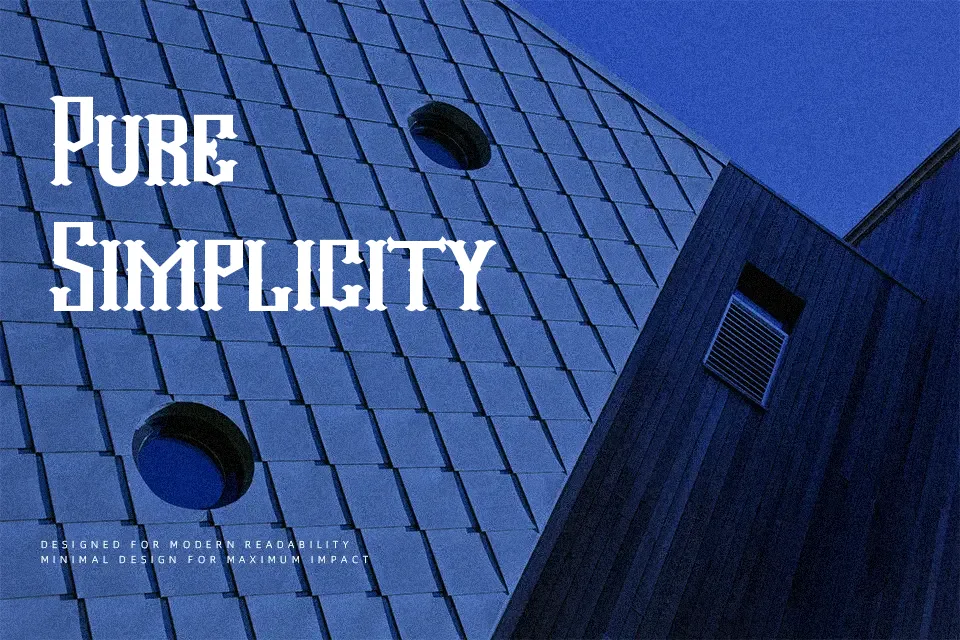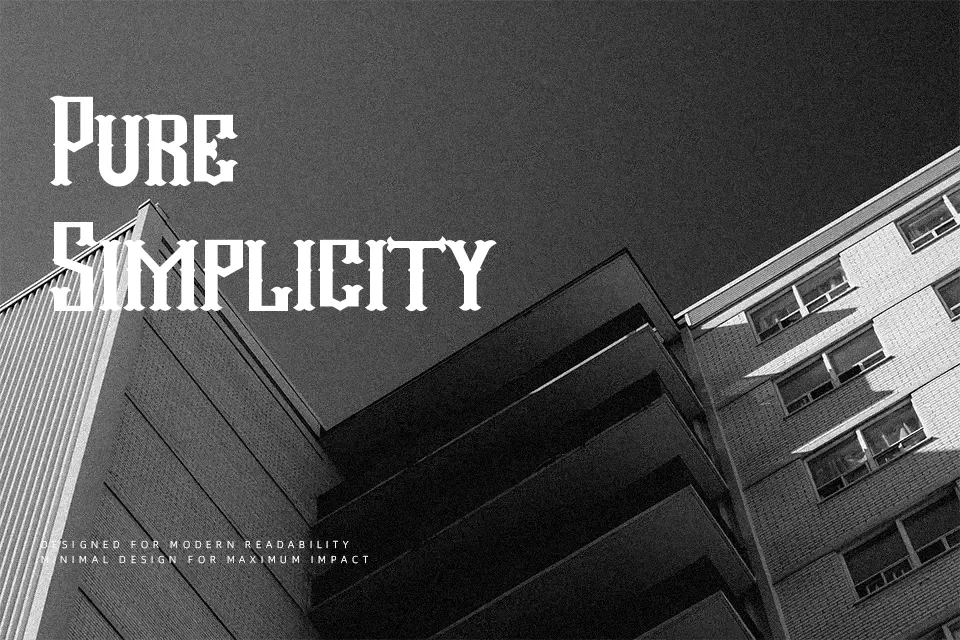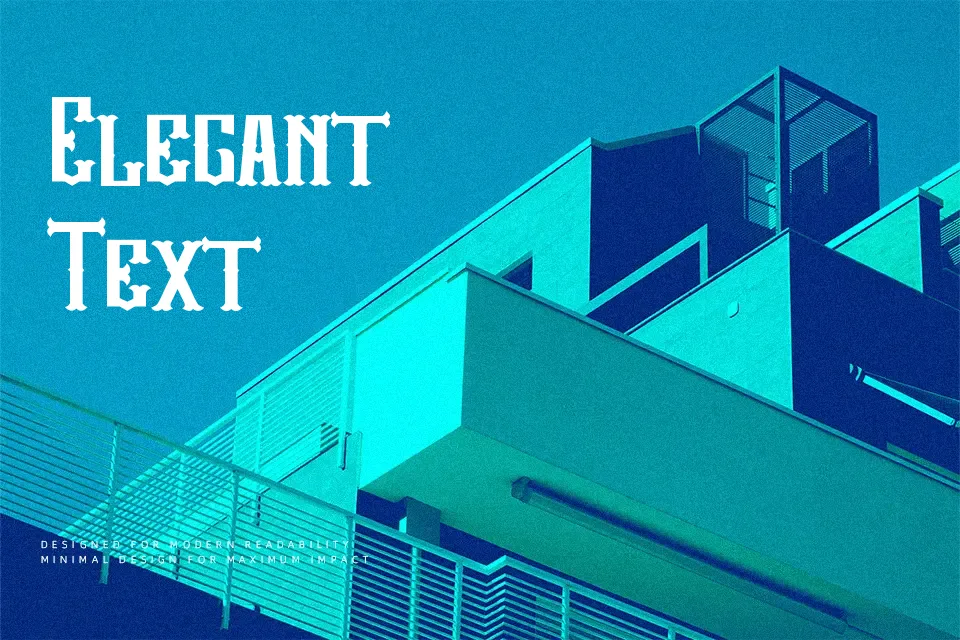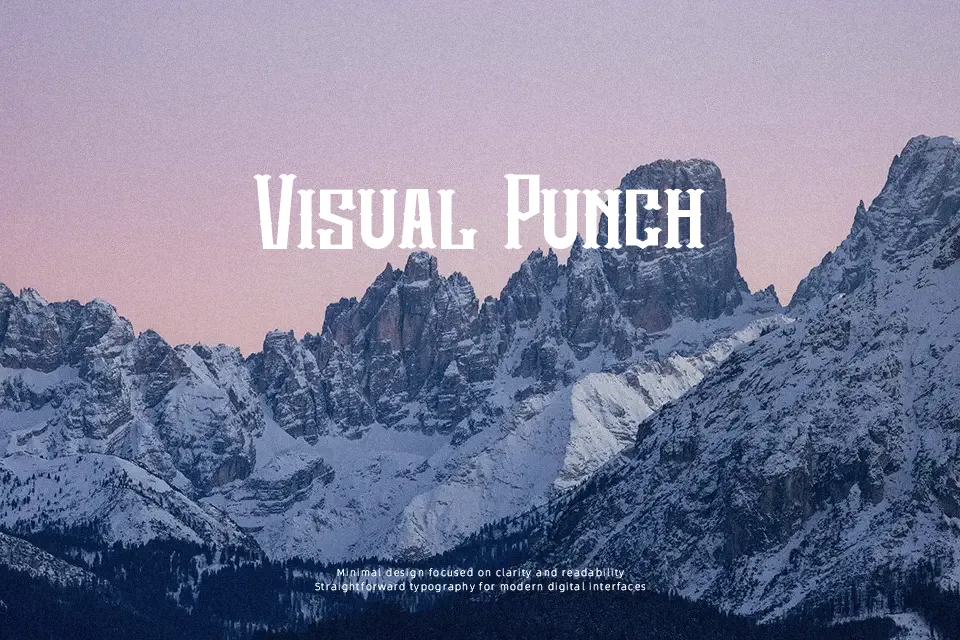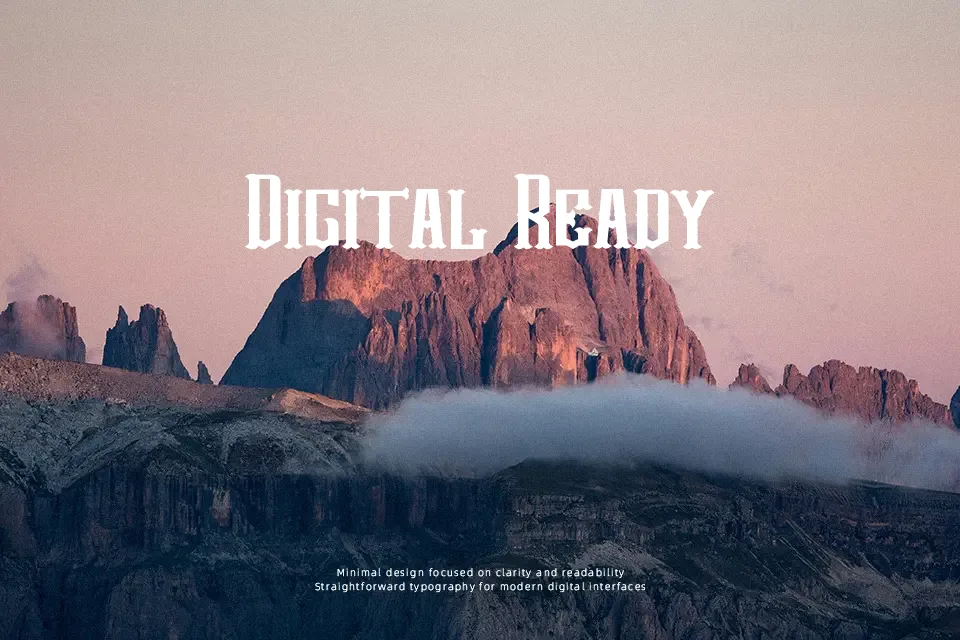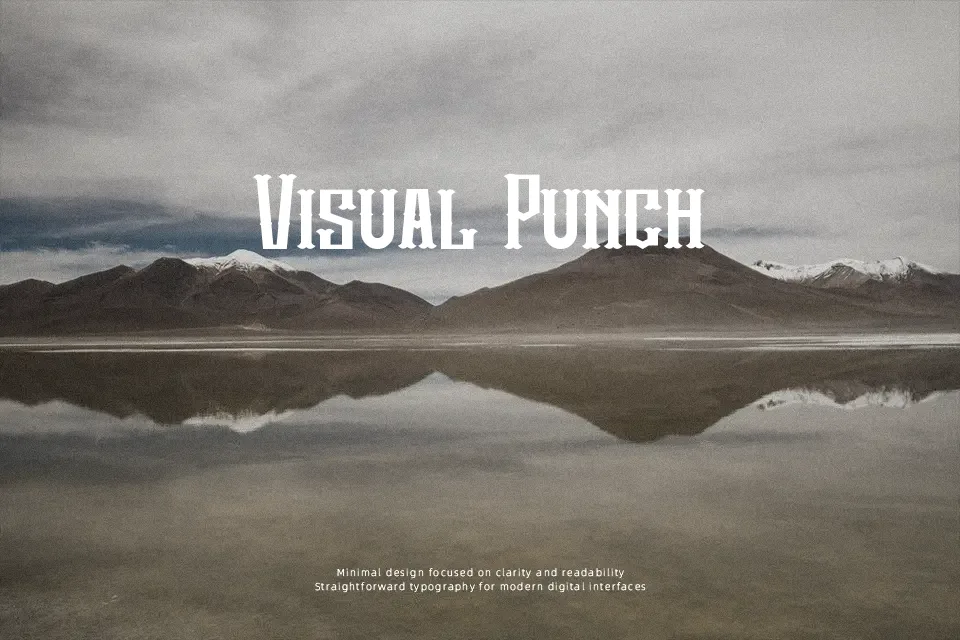
Candrika Font
Candrika is a decorative display font that blends blackletter structure with smoother, rounded curves, so its heavy vertical strokes feel assertive rather than harsh. The letters are tightly built with distinctive spurs and angled terminals, giving headlines a dense, poster-like impact. You get a clear vintage vibe that recalls liquor labels, barber shops, and heritage badges more than formal certificates or newspapers. It holds up nicely at medium to large sizes on packaging, signage, and social graphics, but its busy details and tight spacing make it a poor fit for long body text or tiny captions. If you already use classic blackletters, Candrika sits in the same family but reads a bit softer and more approachable.
whiskey or beverage label designs and bar menus
vintage-inspired logos and badges for small brands
posters and signage needing a bold medieval accent
body copy or long paragraphs in print or web layouts
small UI text, captions, or accessibility-focused interfaces
minimalist corporate branding that relies on neutral type
Perfect for branding, logo, and packaging, with a artistic and blackletter style.